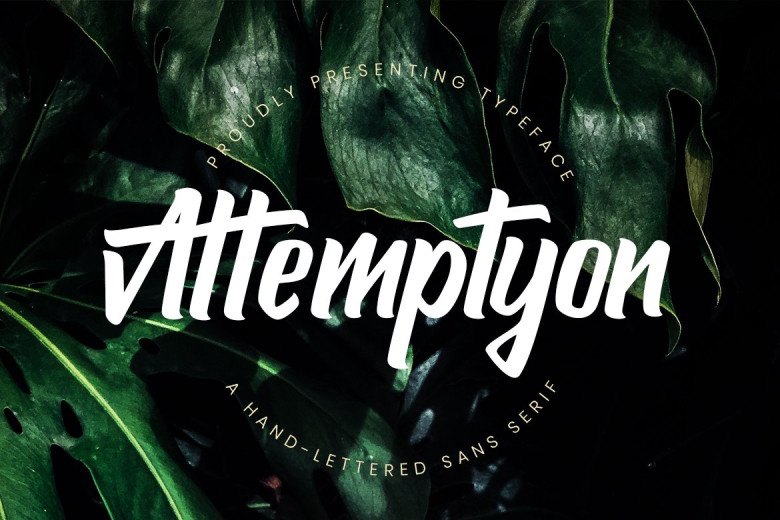
Attemptyon Handwritten Font
Thank you for looking this font. This is a sans serif typeface. Introducing Attemptyon Font! Attemptyon Handwritten Font is a bold handwritten all-caps sans-serif with elegant and modern style. Attemptyon is perfect for branding projects, logo, wedding designs, social media posts, advertisements, product packaging, product designs, label, photography, watermark, invitation, stationery and any projects that need handwriting taste.